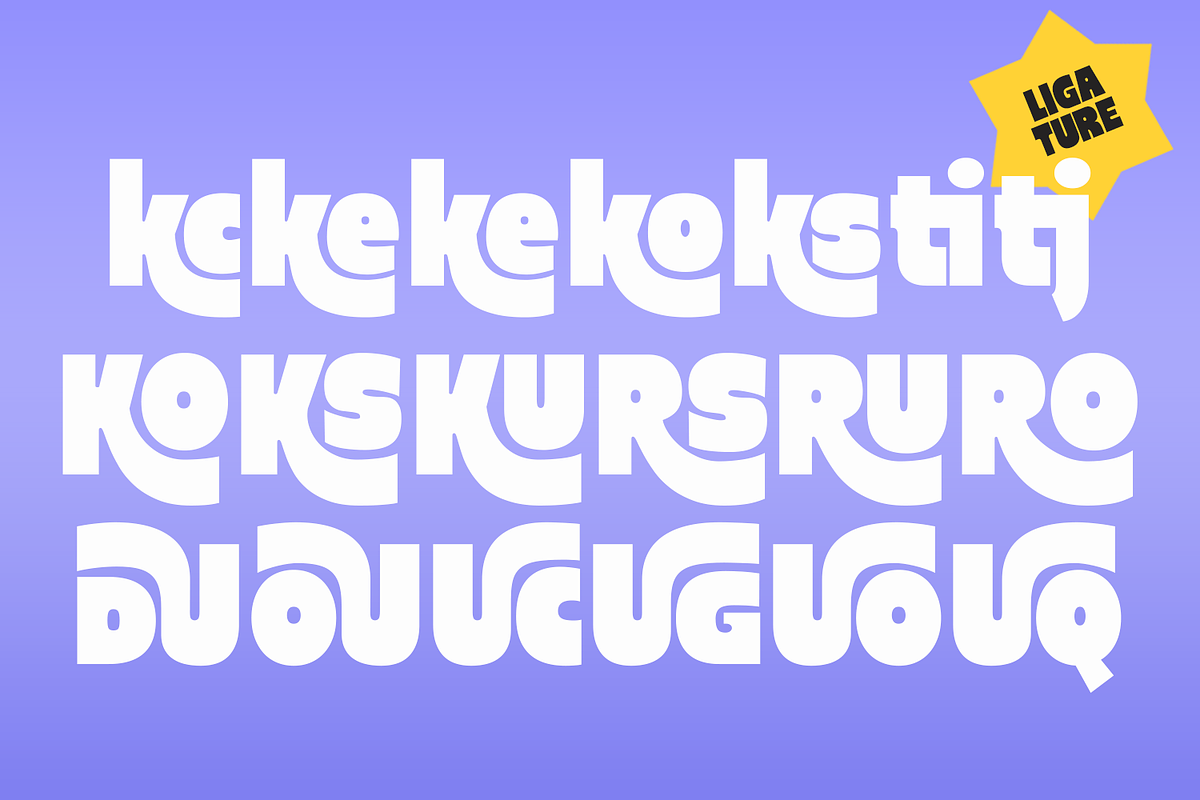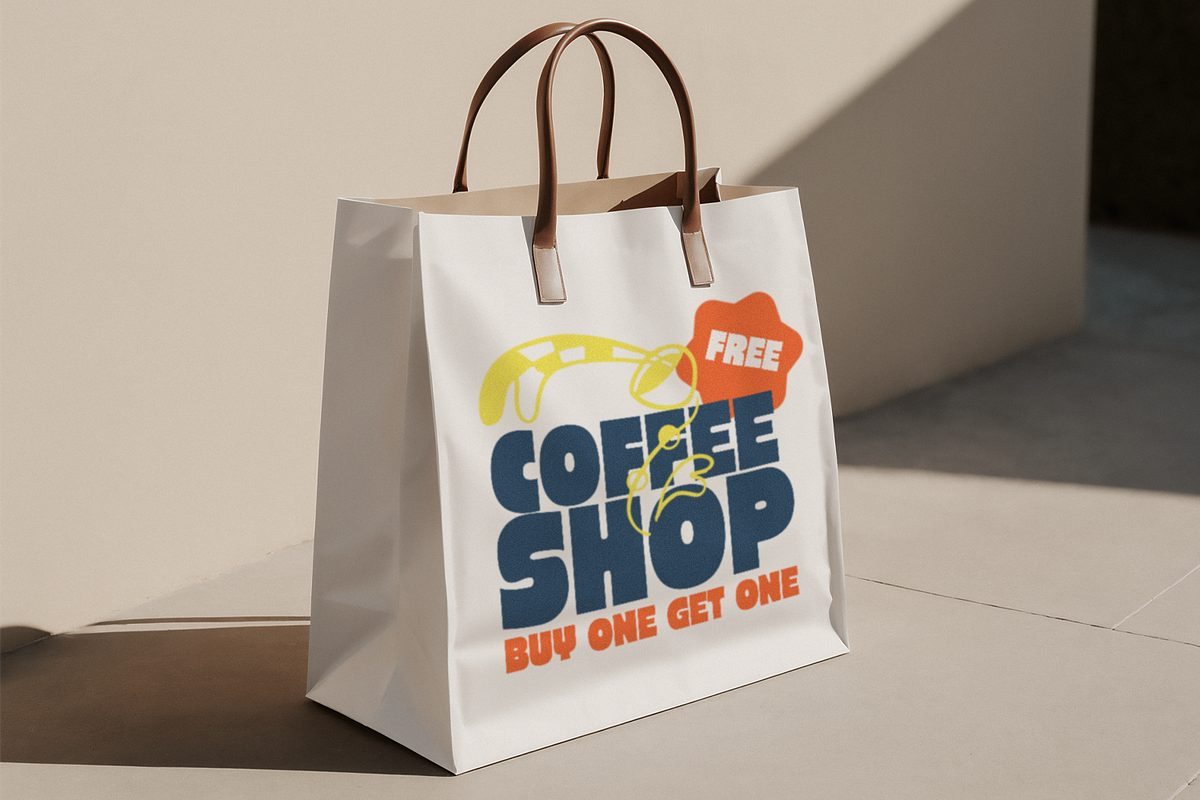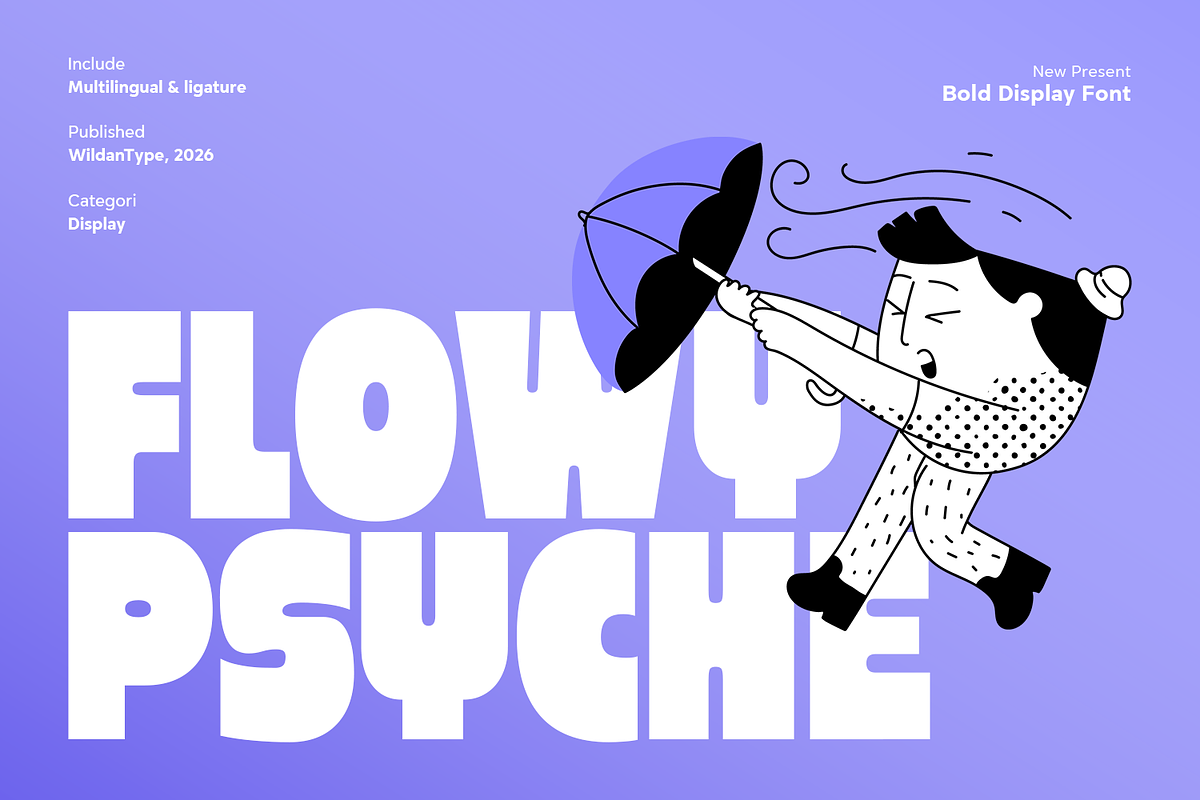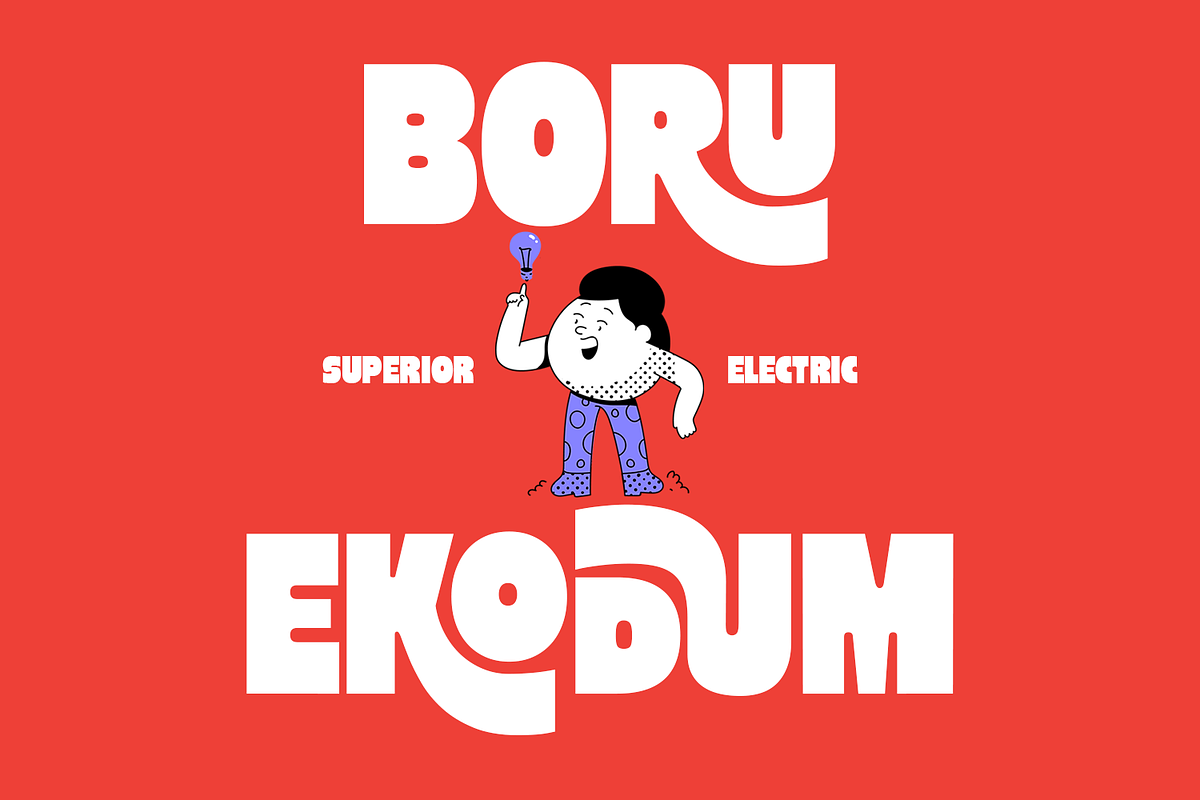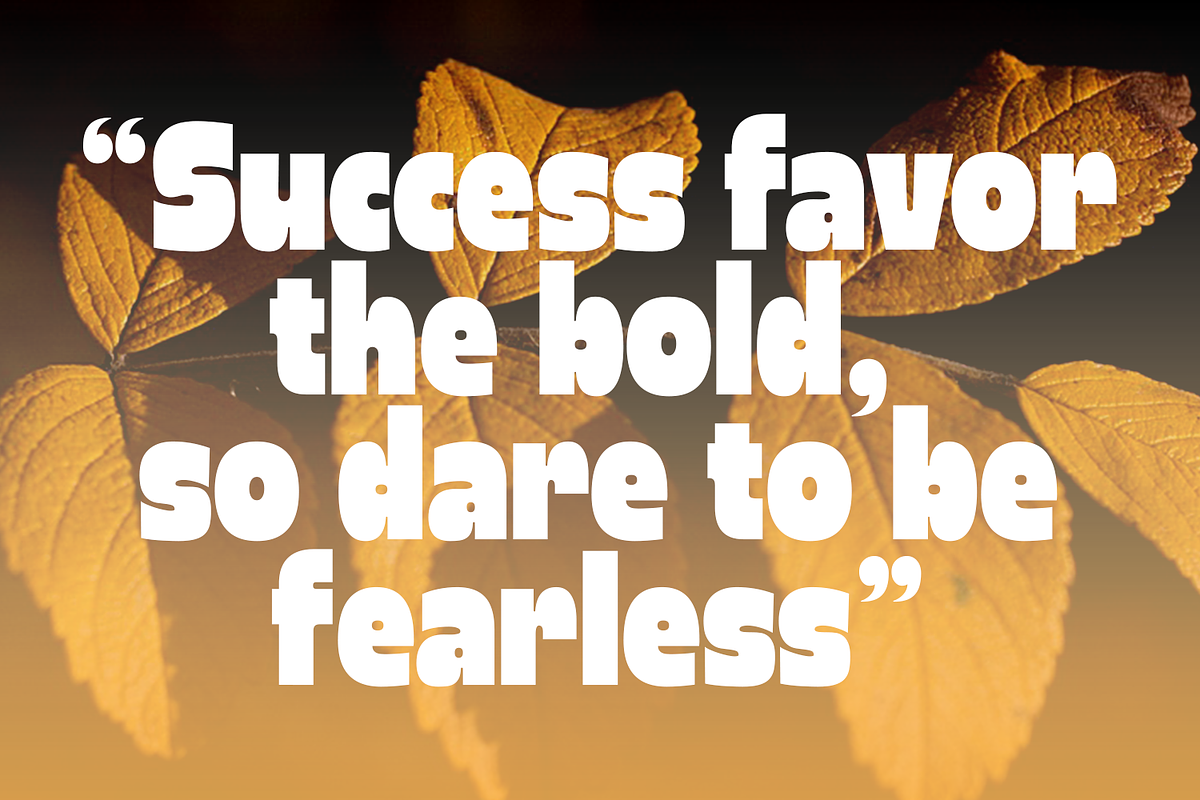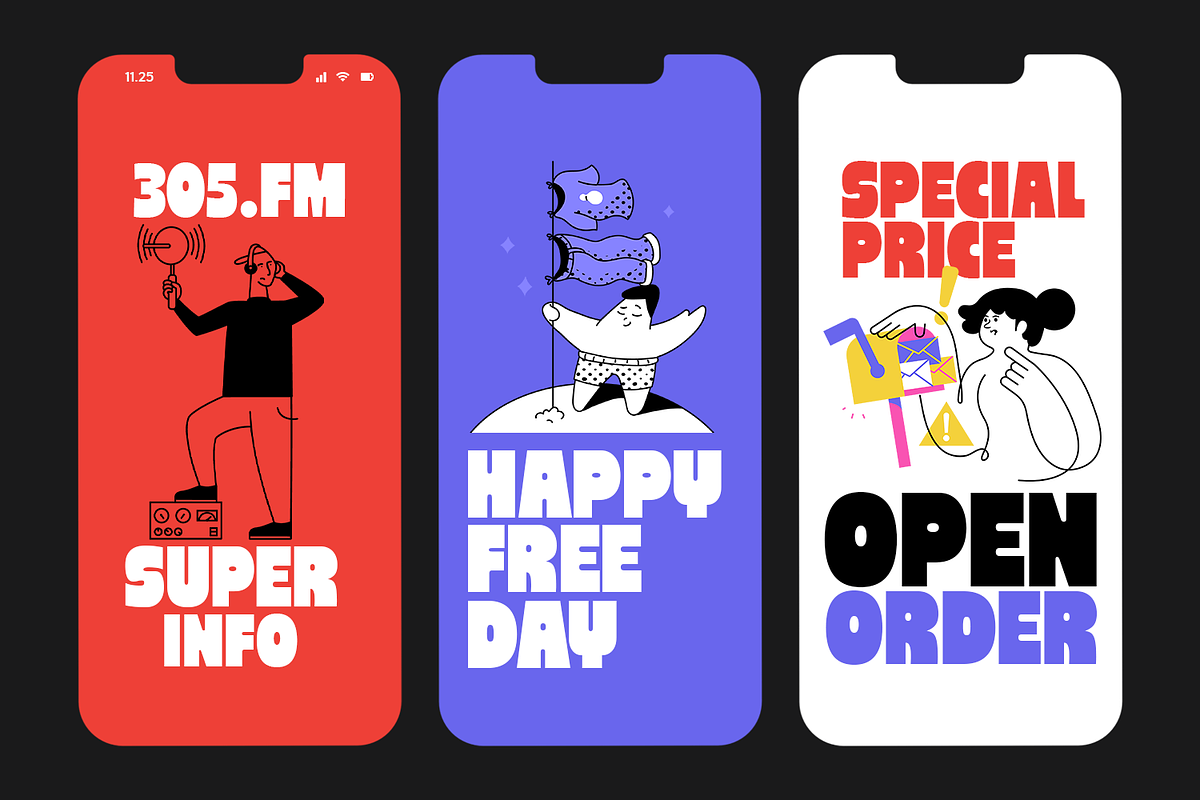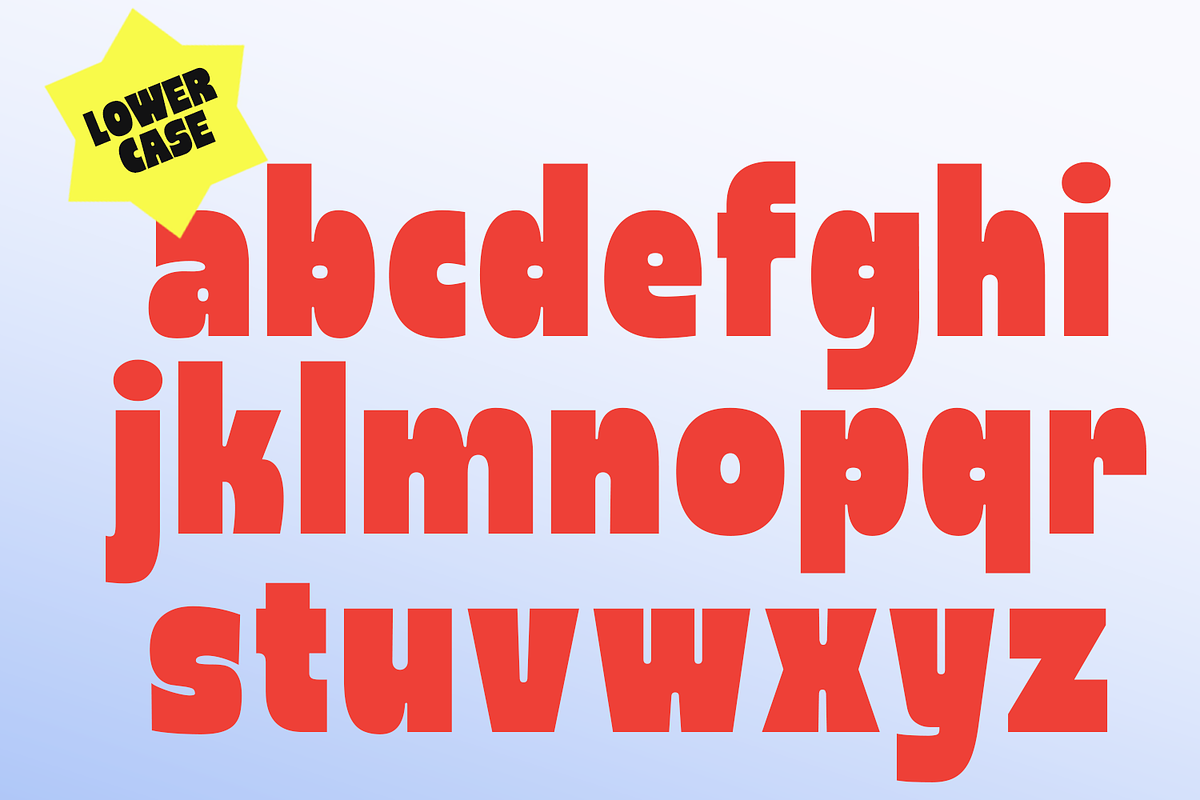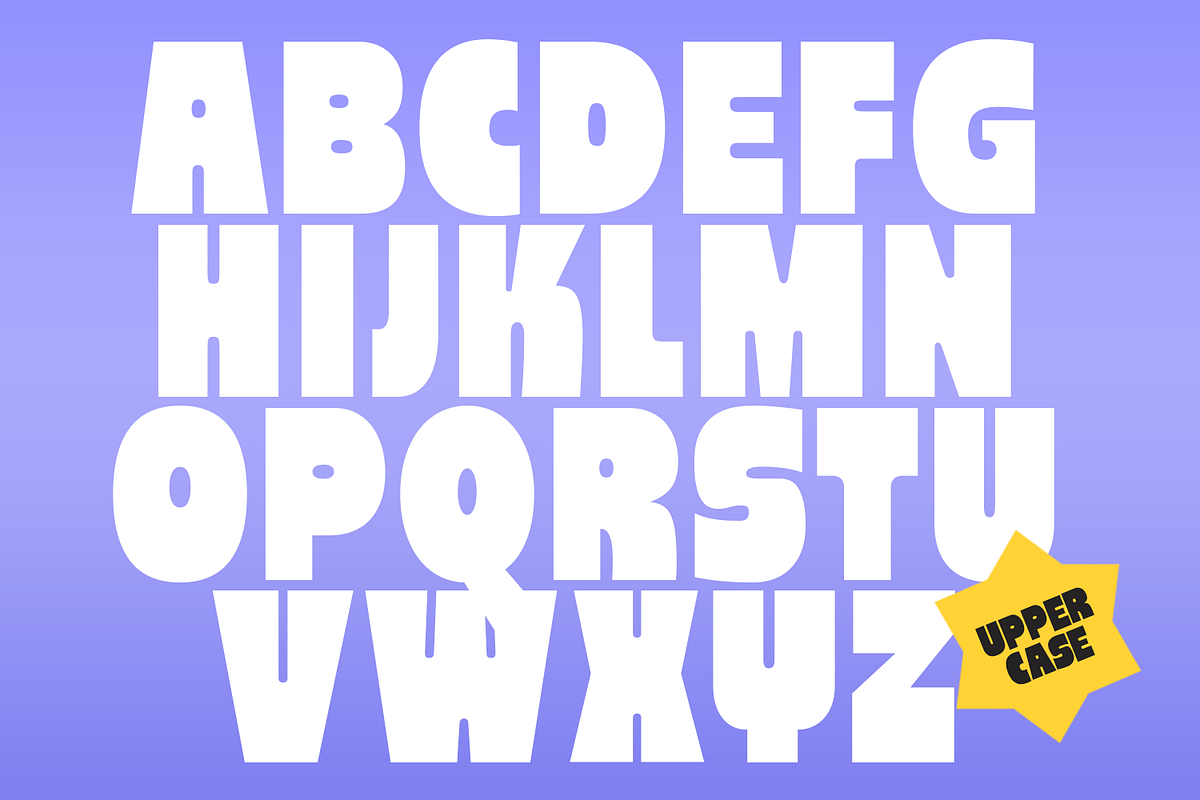
Flowy psyche
Flowy psyche - Bring the soul of the seventies back to your designs with our Retro Psychedelic Display Font! Inspired by the vibrant music posters and pop culture of the 1970s, this font is all about bold curves, chunky characters, and a mesmerizing flow.
Flowy Psyche isn’t just a typeface; it’s a visual statement. With its ultra-bold weight and artistic "liquified" swashes, your projects will instantly radiate an authentic, vintage "groovy" energy.
Why You’ll Love This Font:
Bold & Commanding: High-impact characters designed to grab attention immediately.
Authentic Retro Vibe: Perfect for projects leaning into vintage, psychedelic, disco, or boho-chic aesthetics.
Creative Alternates: Includes unique flowing ligatures characters for a custom, hand-lettered look.
Universal Compatibility: Pairs beautifully with both neon palettes and earthy, muted tones.
Regular and Outline Style
Character Set: Uppercase, Lowercase, Number, Symbol, Punctuation
Multilingual Character: Afrikaans, Albanian, Basque, Catalan, Danish, Dutch, English, Estonian, Faroese, Filipino, Finnish, French, Galician, German, Icelandic, Indonesian, Irish, Italian, Malay, Norwegian Bokmål, Portuguese, Spanish, Swahili, Swedish, Zulu
Opentype Features: Ligature & Alternate